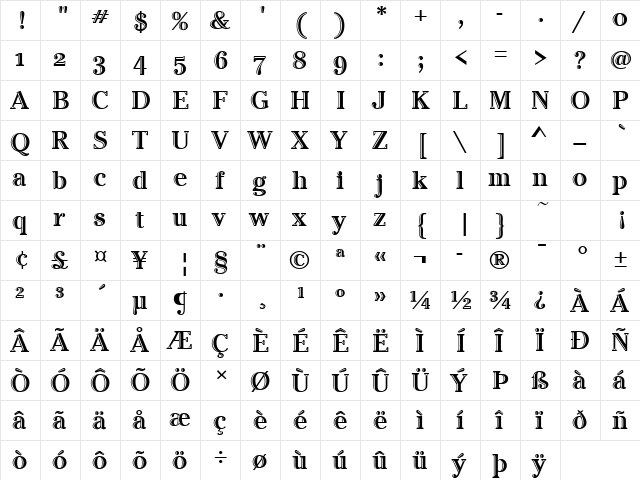
Cheltenham Htd OS ITC TT Regular
Design Context for Cheltenham Htd OS ITC TT Typeface
Cheltenham Htd OS ITC TT takes a measured approach to typography — its balanced proportions and neutral character make it a reliable workhorse for both digital and print work.